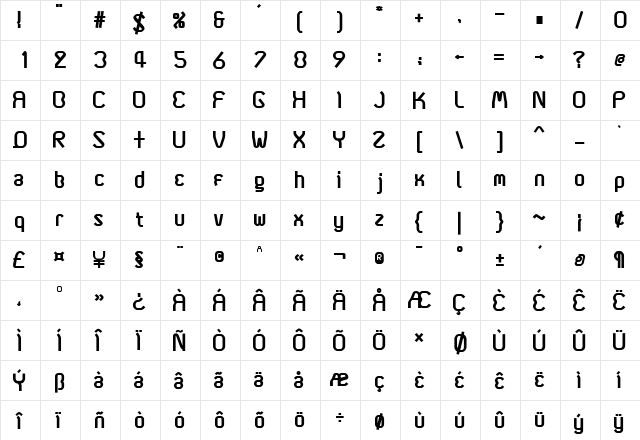
Coma2 Bold
Design Context for Coma2 Typeface
Coma2 takes a measured approach to typography — its balanced proportions and neutral character make it a reliable workhorse for both digital and print work. Its bold stroke weight gives it real presence on the page.